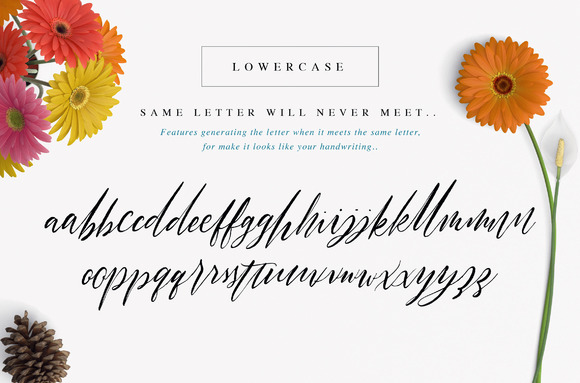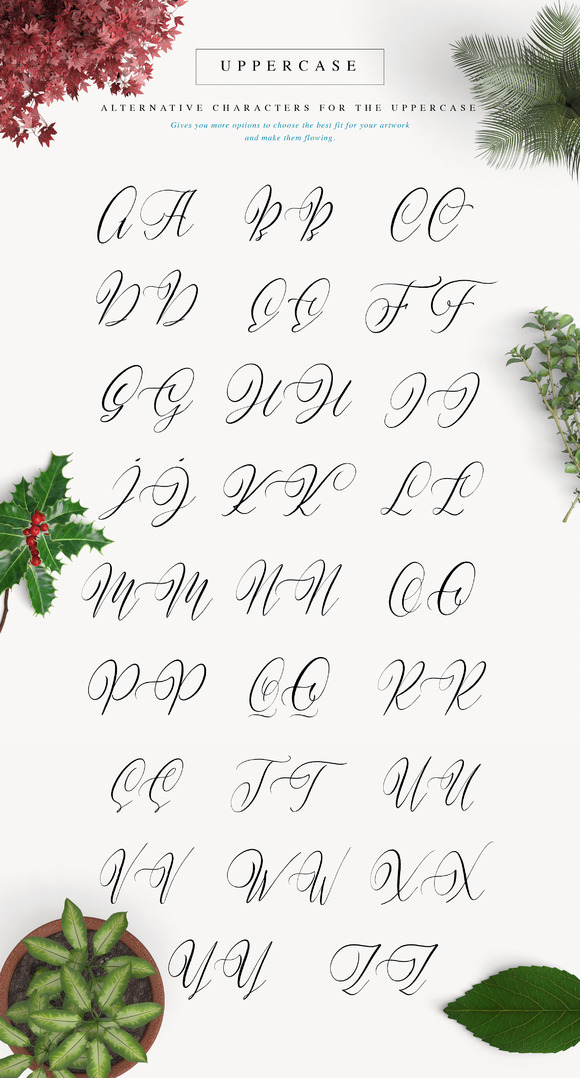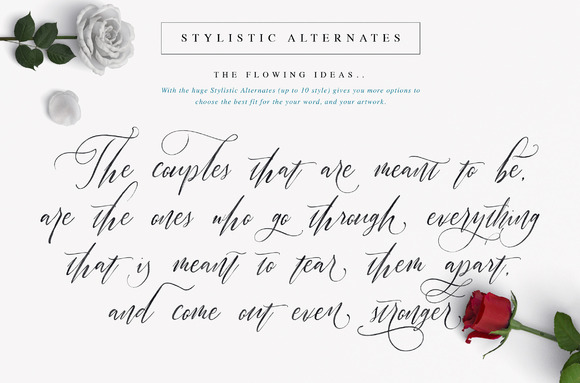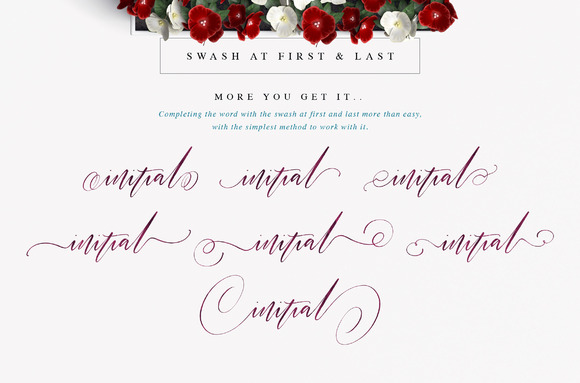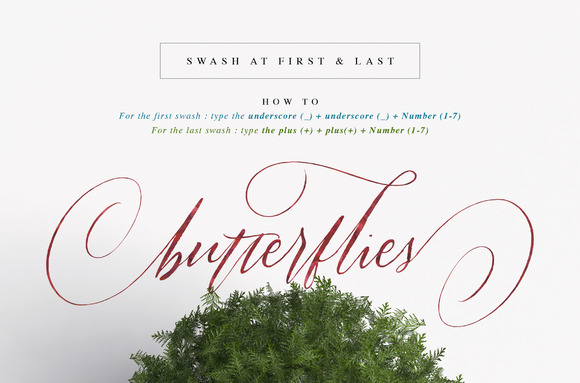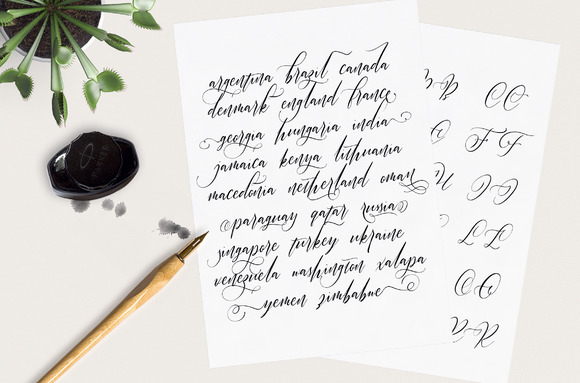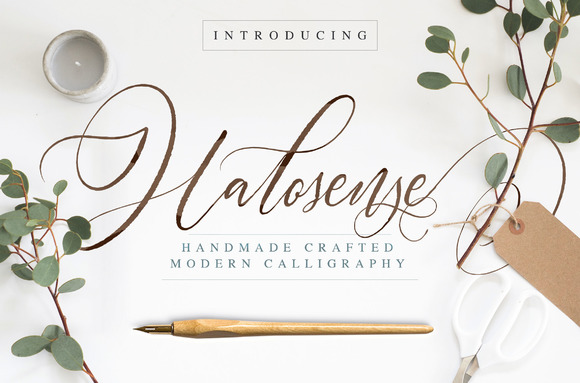
Halosense Script Font
Introducing Halosense Handmade Crafted Modern Calligraphy
Referring from the product before called Octavia Script, this new modern calligraphy is more natural feel, handmade created with small touch of digital to make them flowing like a water on the river. 🙂
This fonts generating more features like CALT (Contextual Alternates), DLIG (discretionary ligatures), SS(Stylistic Set), INIT & FINA (initial and terminal) .
Lowercase : when the letter meets the same letter (aa,bb,cc,etc) there will not having same letter. it will look different a little bit, the function is for make you get the natural feel of hand typing.